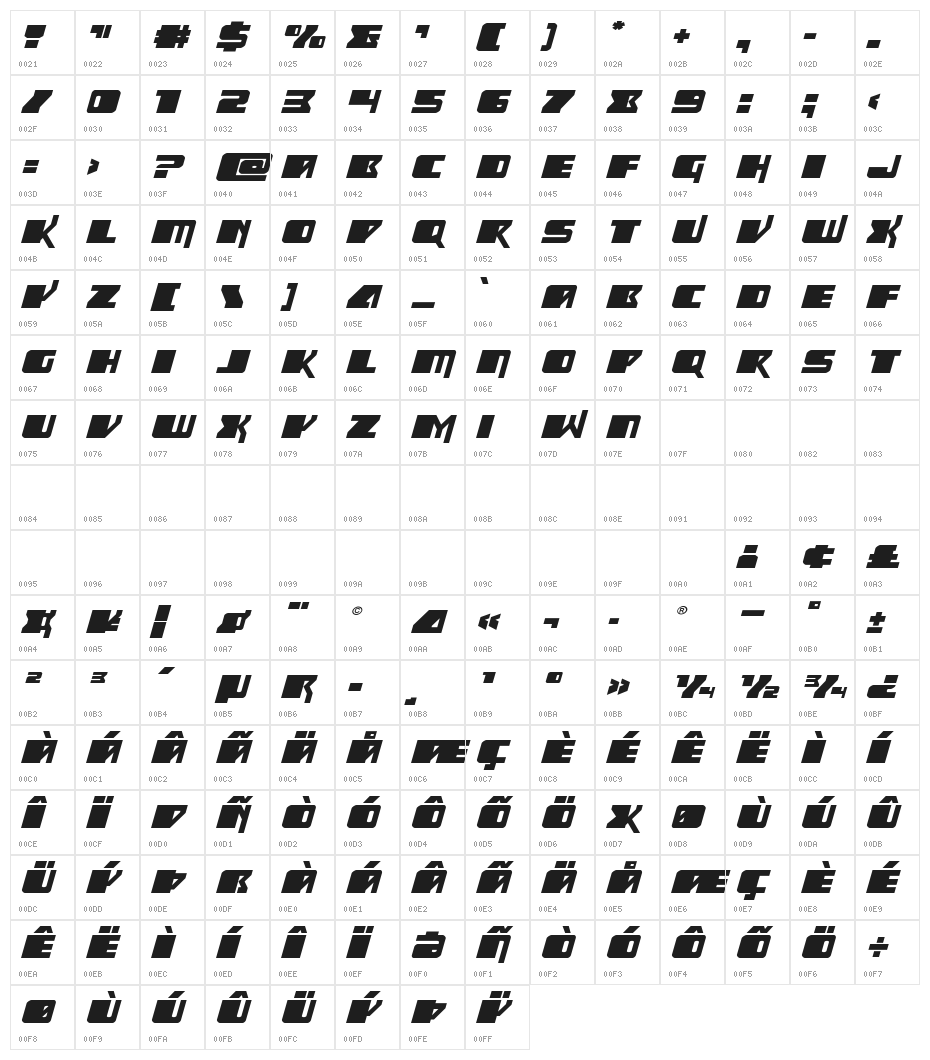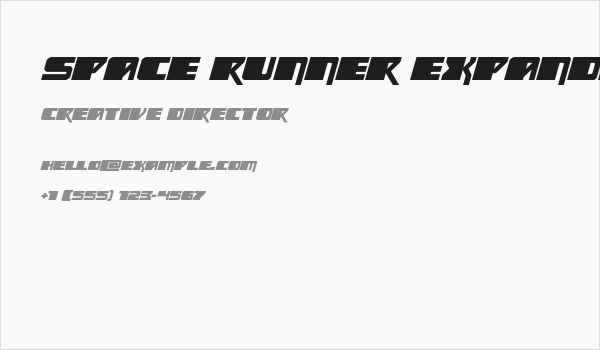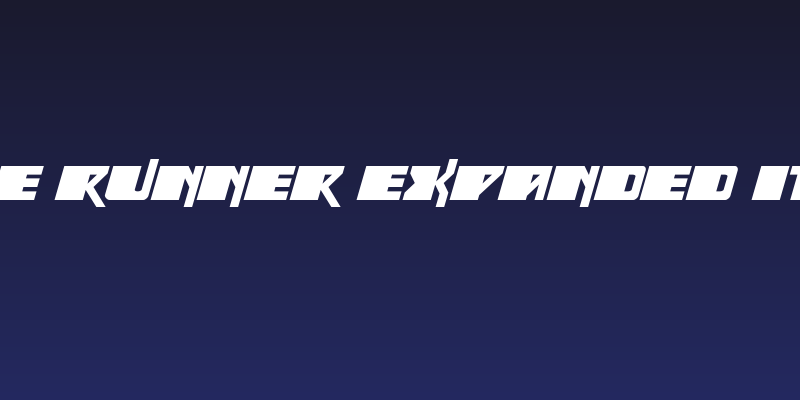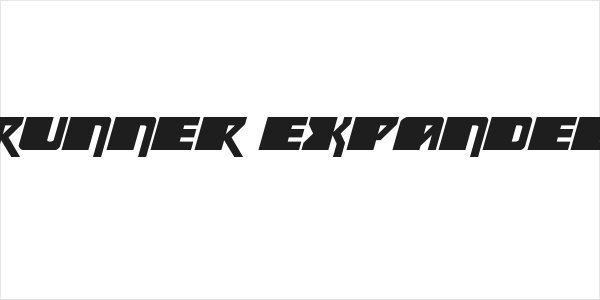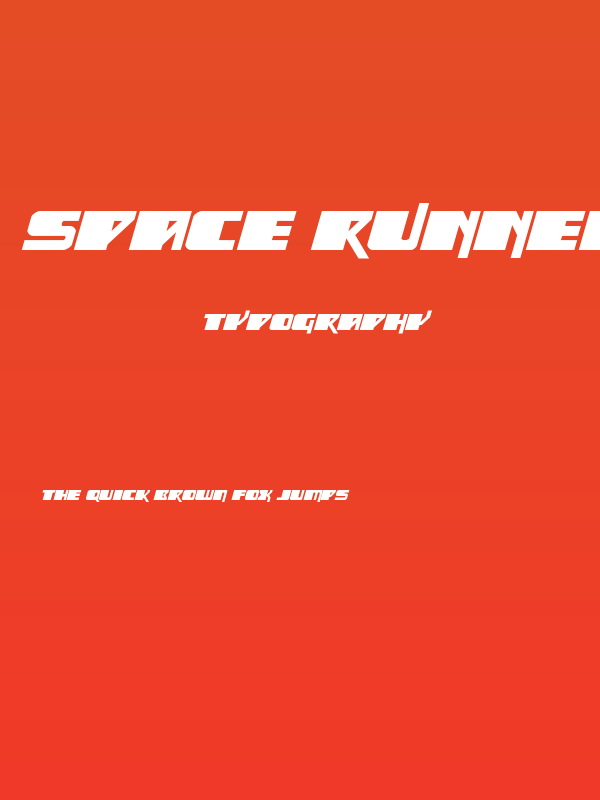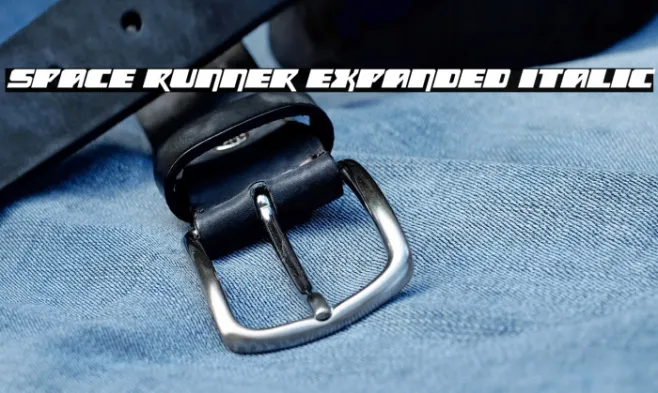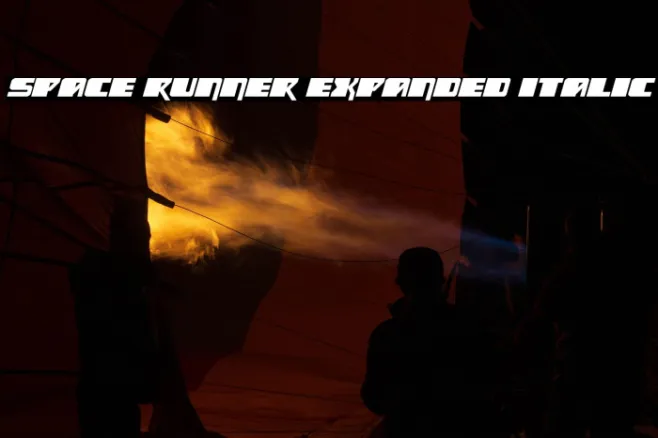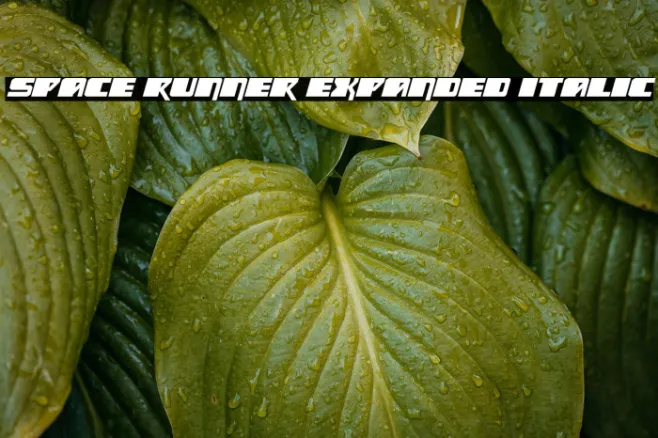
Space Runner Expanded Italic Font
Space Runner Expanded Italic Description
This font features a futuristic and dynamic design with bold, angular lines and a distinct italic slant. The characters are expanded, giving them a wide appearance that enhances their boldness. The sharp edges and geometric shapes contribute to a modern, sci-fi aesthetic. The uppercase and lowercase letters maintain a consistent style, while the numerals and special characters integrate seamlessly with the overall design. This font is ideal for projects that require a strong, impactful presence.
| Proposed Projects | Ideal for sci-fi themed posters, video game titles, technology branding, and futuristic event invitations. |